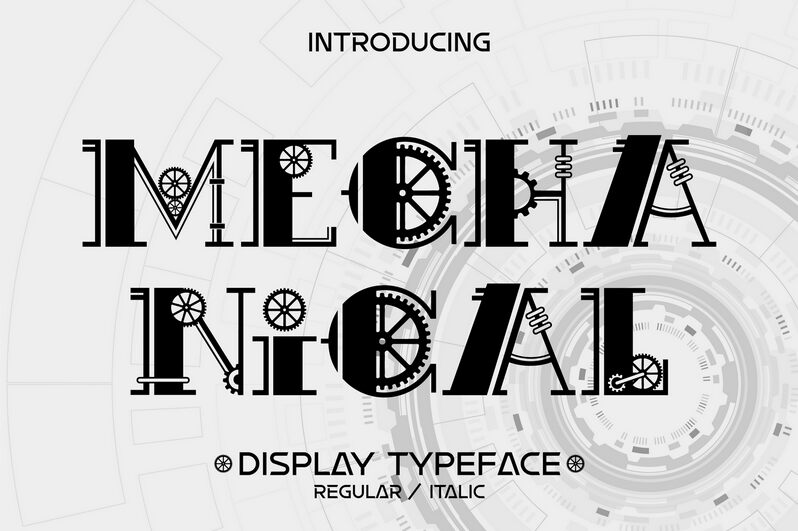
Mechanical Demo Regular
Mechanical, a striking display font crafted by 177Studio, exudes a bold, mechanical aesthetic that commands attention. This decorative typeface features sharp, geometric letterforms with a distinct industrial flair, creating a sense of power and modernity. Its bold weight and captivating visual style make it a standout choice for a variety of design applications.
Mechanical's unique character lends itself well to branding, packaging, and editorial projects that require a strong, impactful typographic presence. Its versatility extends to web design, advertising campaigns, and attention-grabbing headlines, where its dynamic personality can heighten the visual impact and convey a sense of technological sophistication.